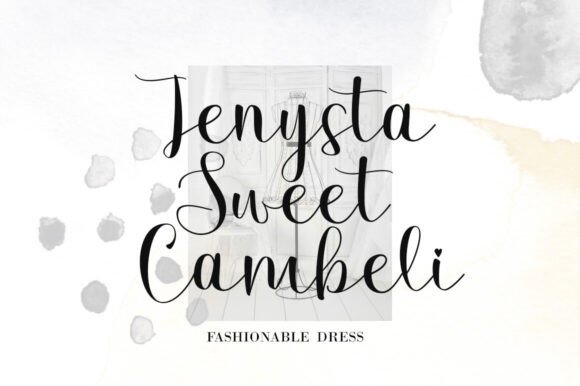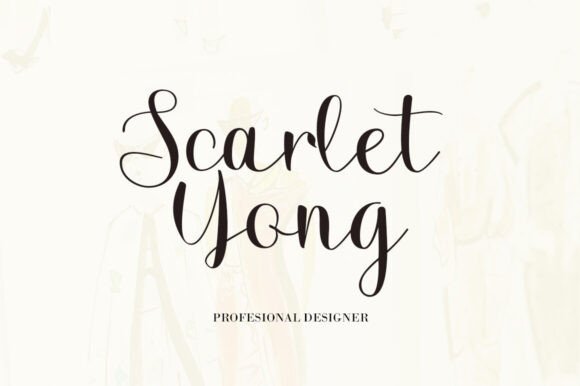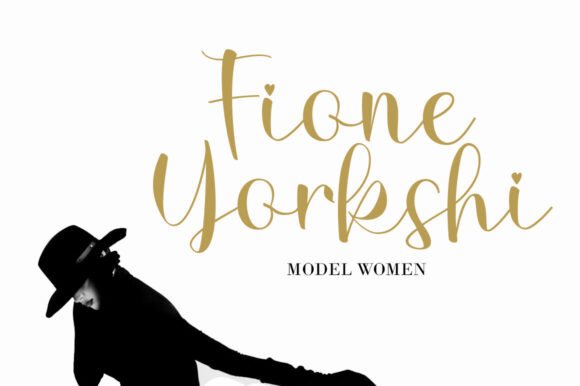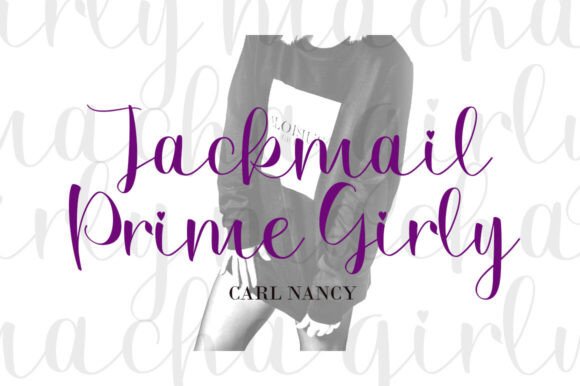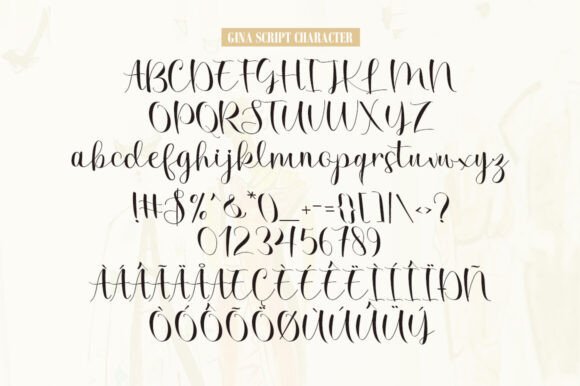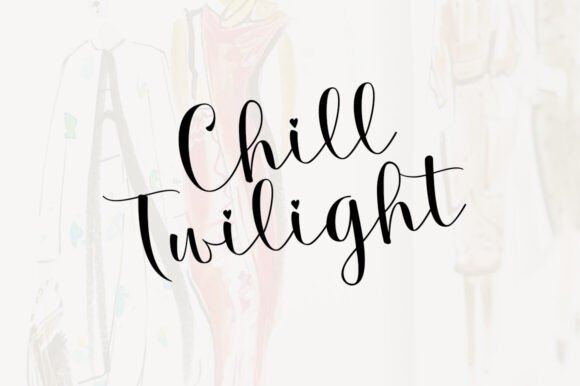
Gina Font: The Sweet and Cursive Handwritten Font for Your Design Needs
Are you a designer or crafter looking for a font that can add a touch of sweetness and romance to your projects? Look no further than Gina Font! This gentle, cursive handwritten font is perfect for a variety of design ideas and is sure to bring a joyful and romantic feel to your work.
What is Gina Font?
Gina Font is a beautiful, handwritten font that features a sweet and cursive design. Its gentle curves and flowing lines make it perfect for creating elegant and sophisticated designs. The font is highly legible and can be used for a variety of projects, from wedding invitations and party decorations to branding and advertising materials.
Features of Gina Font
Gina Font has several features that make it a great choice for designers and crafters. Some of its key features include:
• Sweet and Cursive Design: Gina Font features a beautiful, cursive design that is sure to add a touch of sweetness and romance to your projects.
• Highly Legible: The font is highly legible, making it perfect for use in a variety of projects, from large headings to small body text.
• Versatile: Gina Font can be used for a wide range of design ideas, from wedding invitations and party decorations to branding and advertising materials.
• Elegant and Sophisticated: The font’s gentle curves and flowing lines make it perfect for creating elegant and sophisticated designs.
Uses for Gina Font
Gina Font can be used for a wide range of design projects, including:
• Wedding Invitations: Gina Font is perfect for creating beautiful and elegant wedding invitations that will set the tone for your special day.
• Party Decorations: The font can be used to create festive and fun party decorations, such as banners, garlands, and more.
• Branding and Advertising: Gina Font can be used to create elegant and sophisticated branding and advertising materials, such as logos, business cards, and brochures.
• Stationery and Gift Tags: The font is perfect for creating beautiful and personalized stationery and gift tags.
Tips for Using Gina Font
Here are a few tips for using Gina Font in your design projects:
• Use it with Pastel Colors: Gina Font looks beautiful when paired with pastel colors, such as pale pink, baby blue, and mint green.
• Experiment with Different Sizes: The font looks great in a variety of sizes, from large headings to small body text.
• Pair it with Other Fonts: Gina Font can be paired with other fonts to create a unique and interesting design.
• Use it for Headings and Titles: The font is perfect for use in headings and titles, where its elegant and sophisticated design can really shine.
Gina Font is a beautiful and versatile font that is perfect for designers and crafters looking to add a touch of sweetness and romance to their projects. Its gentle curves and flowing lines make it perfect for creating elegant and sophisticated designs, and its highly legible design makes it suitable for use in a wide range of projects. Whether you’re creating wedding invitations, party decorations, or branding and advertising materials, Gina Font is sure to be a great choice.